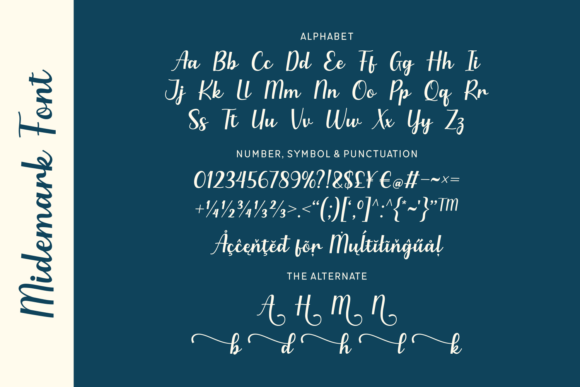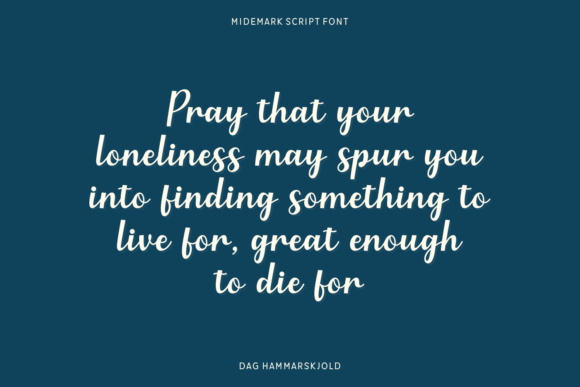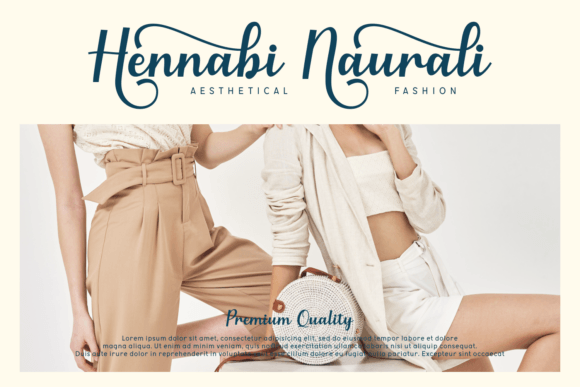
Introduction to Midemark Font
Midemark is a stunning modern script font that blends elegance with versatility.
Its smooth curves and delicate swashes make it perfect for branding, logos, invitations, and more Whether youโre designing for weddings, luxury packaging, or sophisticated events, Midemark adds a touch of class and refinement to every project.
Key Features of Midemark Font
Why Choose Midemark Font?
Midemark Font offers exceptional quality and versatility, making it a valuable addition to your design toolkit. Whether you’re creating for personal projects or commercial use, Midemark Font delivers professional results.